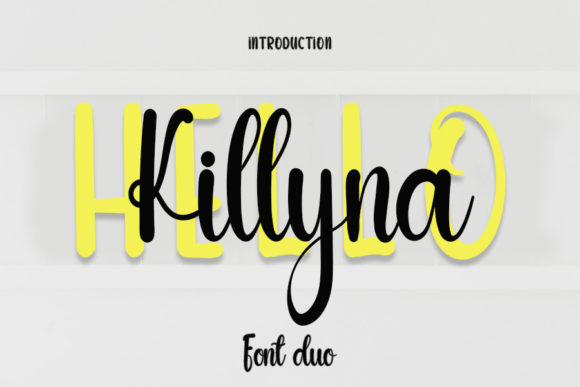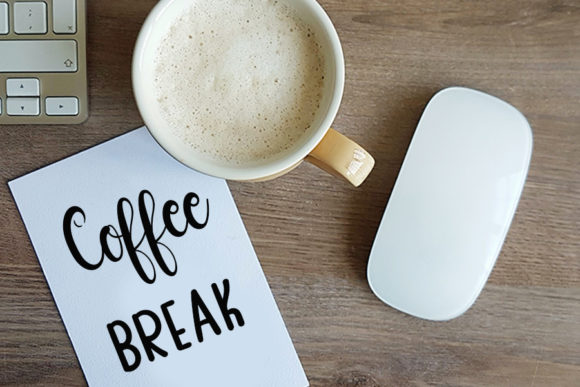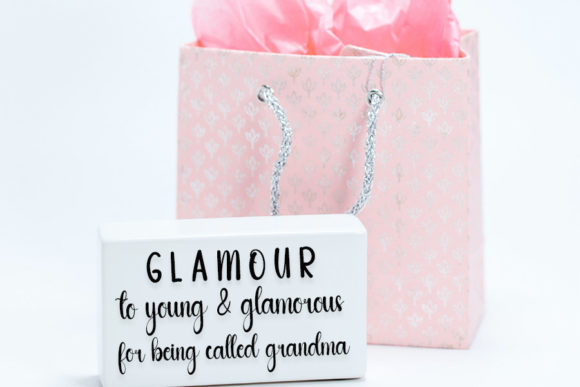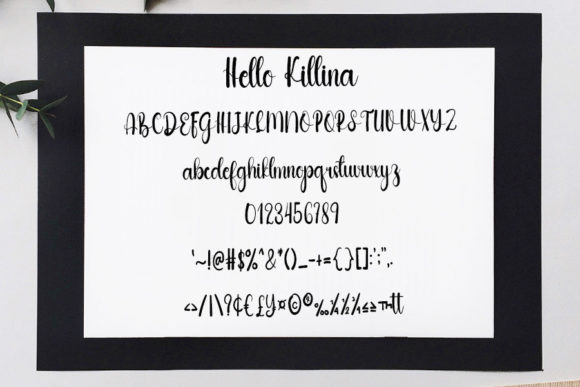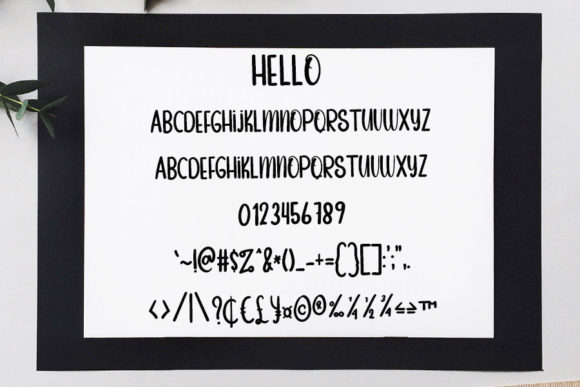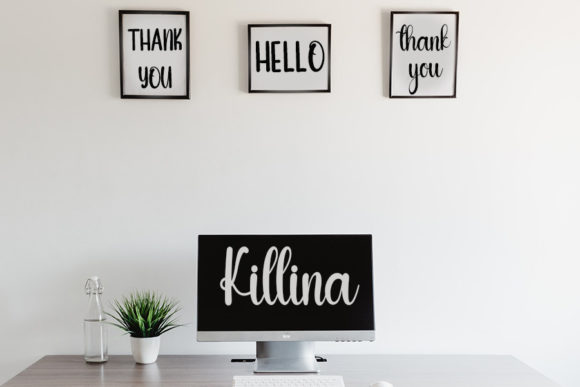
Hello Killyna Font
About Hello Killyna Font
Hello Killyna is a gorgeous and stylish duo handwritten font. It reads as confident and dynamic and can add tons of nostalgic character to your designs.